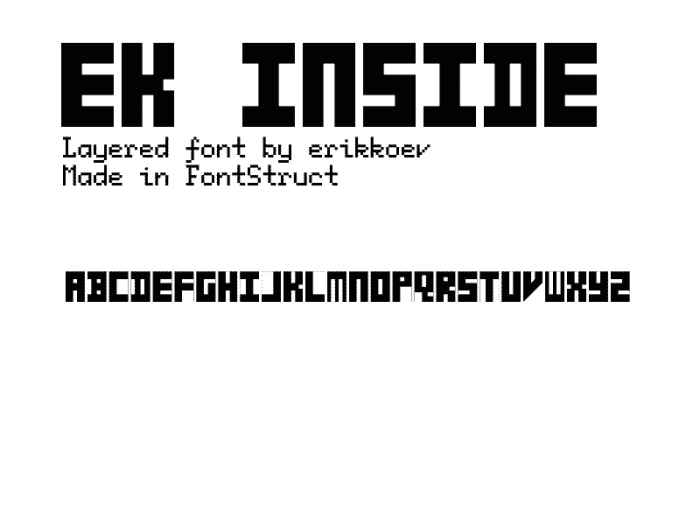
• how to use this font (make sure you're using a vector editor!):
1. type some text in uppercase.
2. type the same text below the text you made in step 1, this time in lowercase.
3. move the text you made in step 2 to the text you made in step 1 and color the text you made in step 2 white.